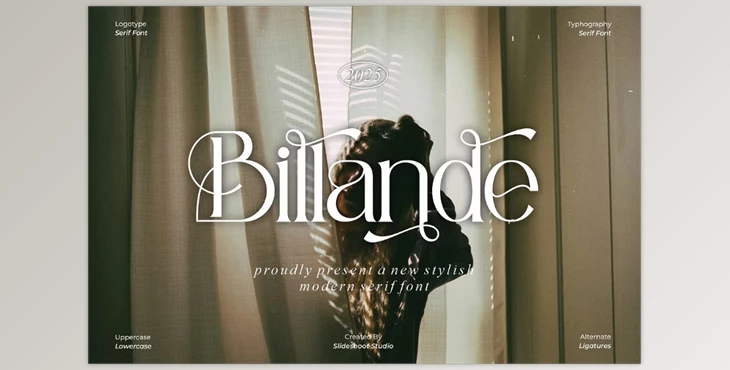
Billande Stylish Serif Font:
Billande stands out as a modern serif font that is stylish, elegant, and trendy. Its character sets it apart and makes it usable for almost all-rounded design purposes. Whether it's invitation card designs, logo designs for companies, movie titles, business branding, book branding, and much more, this font adds class and beauty to the projects.
Some great features of Billande Stylish Serif Font:
- Accommodates various stylistic requirements by including uppercase and lowercase letters.
- Includes all the necessary punctuation and numbers.